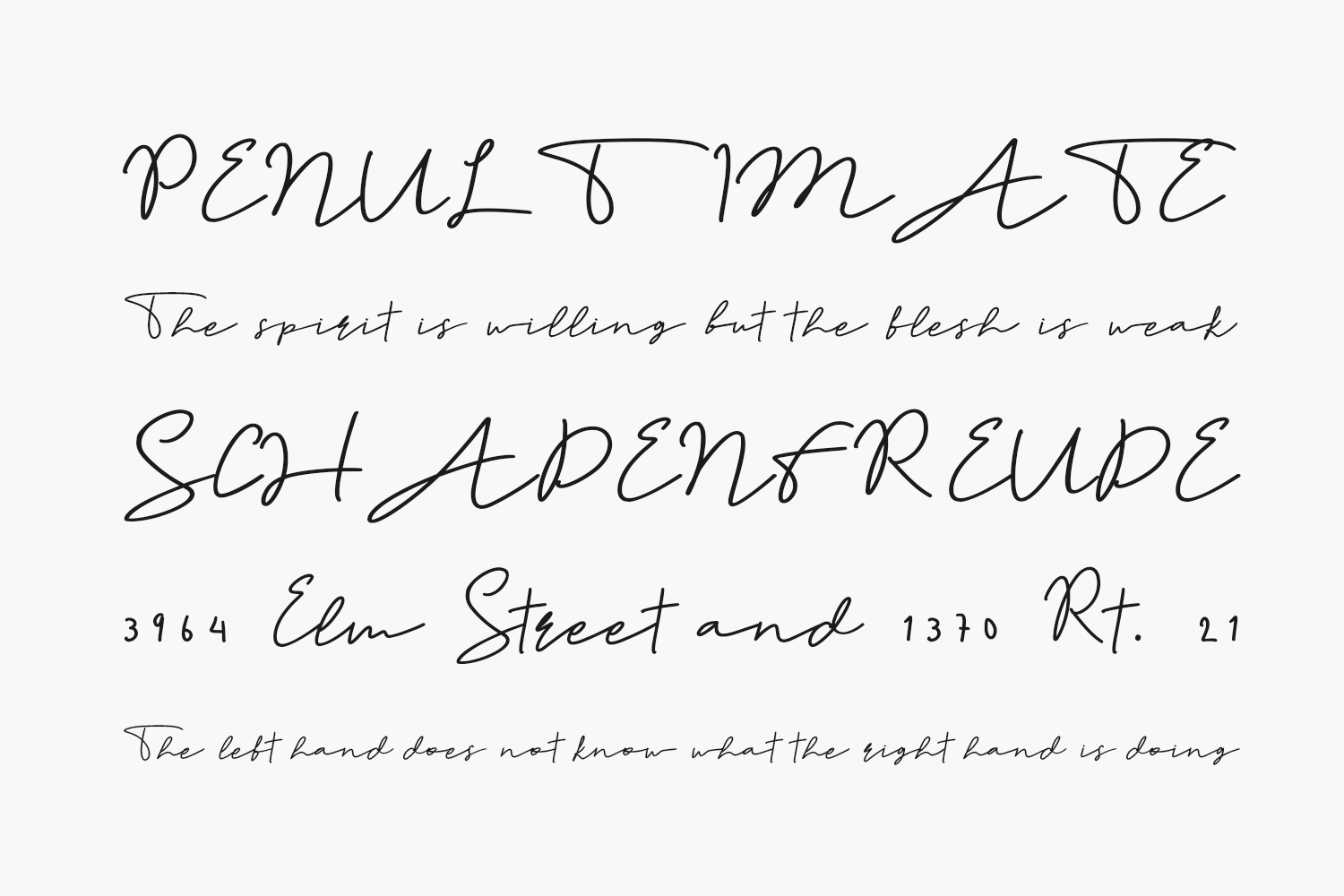
Andalusia Free Font is a stylish and delicate script font. It will add a luxury spark to any design project that you wish to create! Fall in love with its incredibly versatile style and use it to create spectacular designs. Andalusia Free Font was designed by Bearytype and is free for personal use only. Please purchase the full version for commercial use.